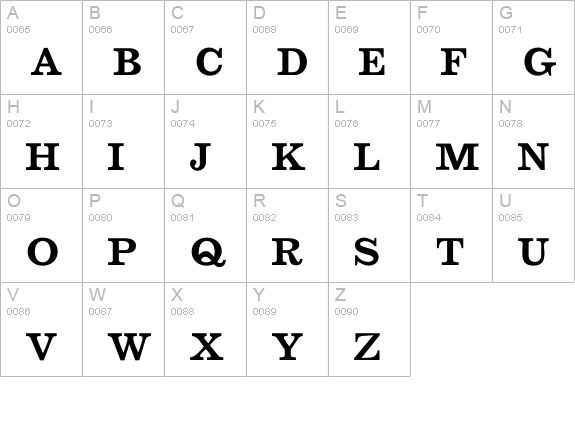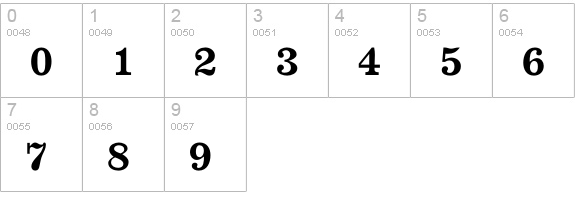
Barbera-Fat Font Details
Barbera-Fat font is a bold and captivating typeface that exudes creativity and modernity. Its thick strokes and unique letterforms make it perfect for eye-catching headlines, banners, and logos. This versatile font is sure to make a statement in any design project, adding a touch of sophistication and style. Best of all, Barbera-Fat font is available for free download at FontsMarket.com. Whether you're a graphic designer, artist, or hobbyist, this font is a must-have addition to your collection. Don't miss out on the opportunity to enhance your projects with this stylish and contemporary typeface. Download Barbera-Fat font today and unleash your creativity!